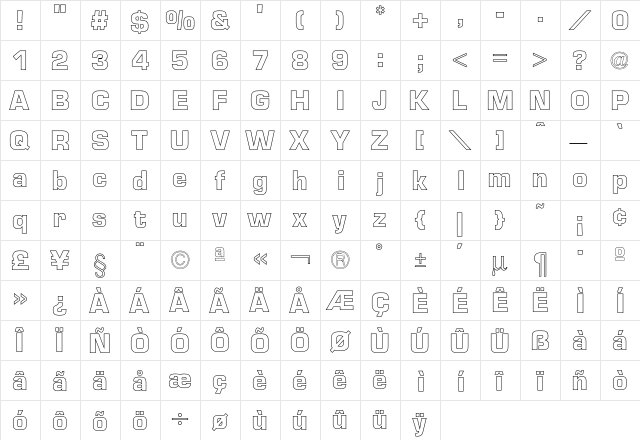
Euro TechnicBoldOutline
Design Context for Euro Typeface
Euro has a distinctly futuristic character, with geometric precision and clean angles that feel at home in technology, gaming, and sci-fi contexts. The heavy weight commands attention and anchors typographic hierarchies.
Pro Tip: Try Euro with generous letter-spacing in UI labels and navigation — the geometric forms benefit from room to breathe.